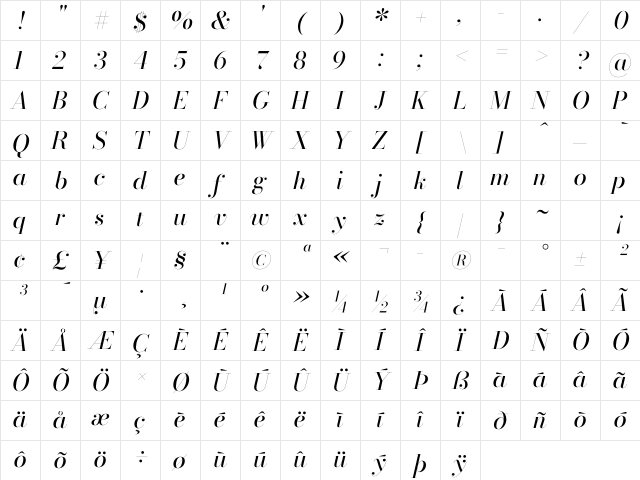
Bodoni* 36 is a composed and adaptable typeface that performs quietly and consistently across a wide range of design contexts. The slanted form adds forward momentum and visual energy.